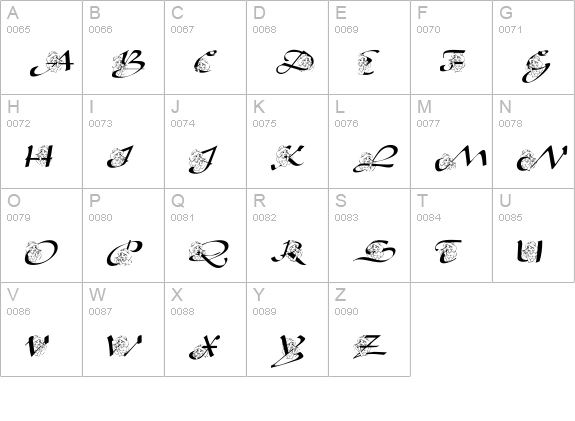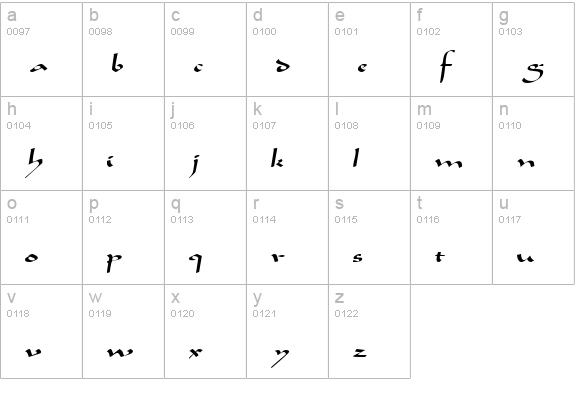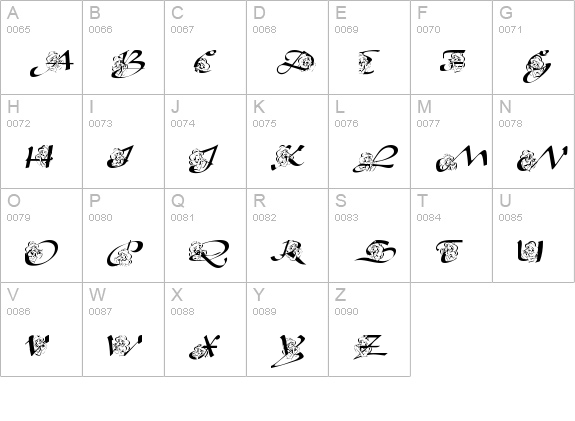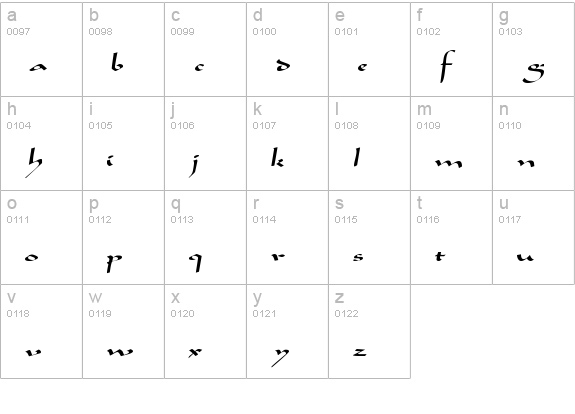
AL Princess Jasmine Font Details
Introducing AL Princess Jasmine font, a mesmerizing and enchanting typeface that exudes elegance and sophistication. Inspired by the timeless beauty of Princess Jasmine, this font captures the essence of Arabian nights and brings a touch of magic to any design project. With its intricate curves and graceful strokes, AL Princess Jasmine font is perfect for creating captivating headlines, eye-catching logos, and stunning invitations. Whether you're designing a fairytale wedding invitation or a mystical fantasy novel cover, this font will transport your audience to a world filled with wonder and enchantment. What makes AL Princess Jasmine font truly special is that it is freely available to download at FontsMarket.com. That's right, you can bring a touch of royal elegance to your designs without spending a dime. With its generous commercial use license, you can use this font for both personal and professional projects, making it an invaluable asset for designers, writers, and creatives alike. So why wait? Let AL Princess Jasmine font be the key to unlocking your imagination and taking your designs to a whole new level. Download this captivating typeface today and embark on a magical journey of creativity and inspiration.